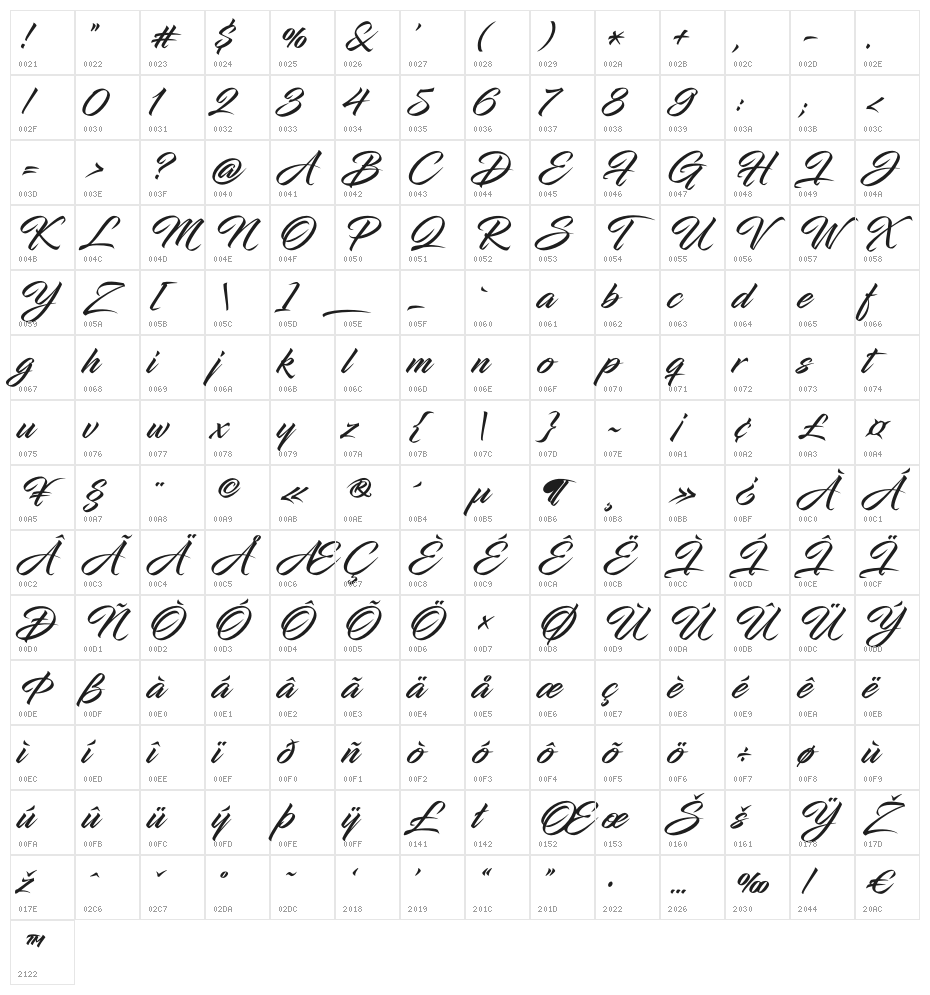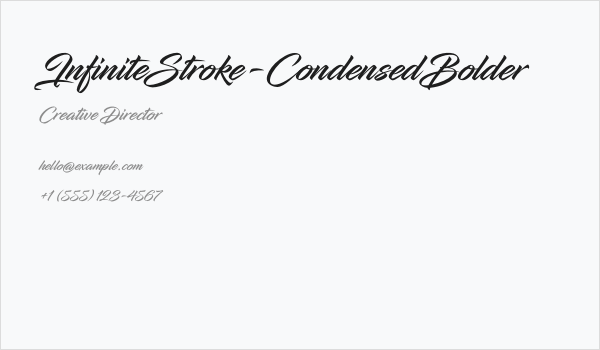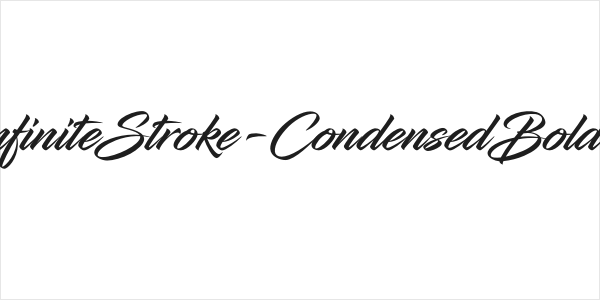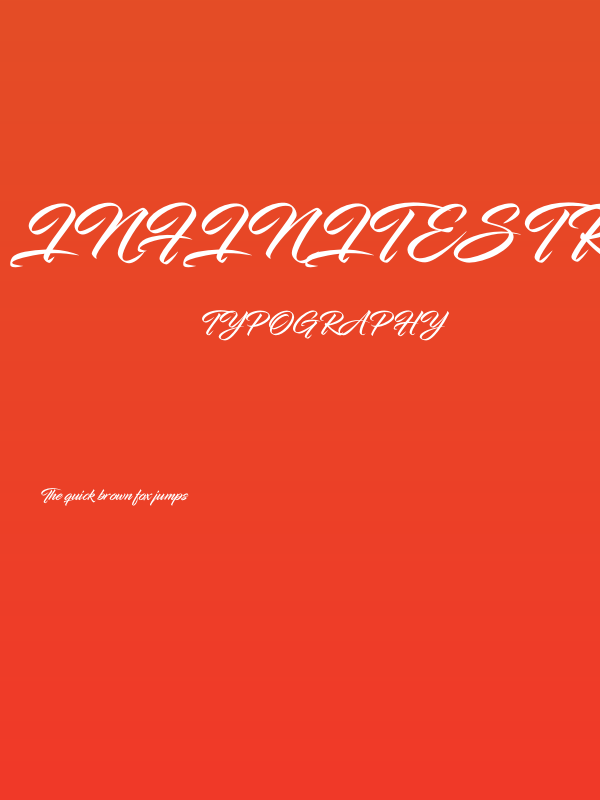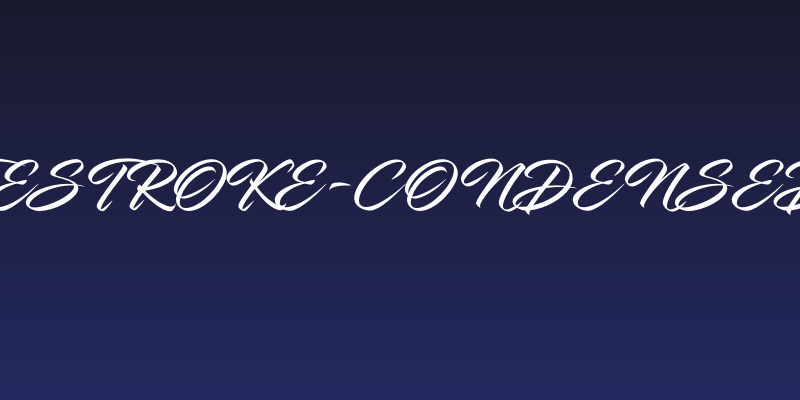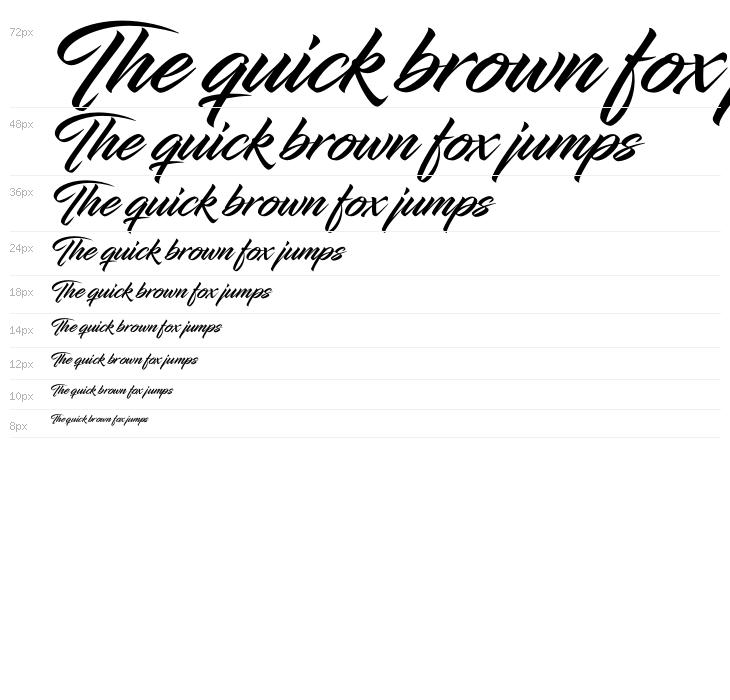
InfiniteStroke-CondensedBolder Font
InfiniteStroke-CondensedBolder Description
This font features a bold and dynamic script style with a condensed width, giving it a striking and elegant appearance. The characters are fluid and connected, creating a sense of motion and sophistication. The uppercase letters are particularly ornate, with sweeping curves and flourishes that add a touch of drama. The lowercase letters maintain a consistent flow, enhancing readability while preserving the decorative nature. The numerals and special characters are designed to match the overall aesthetic, ensuring a cohesive look across all text elements. This font's high contrast in stroke thickness adds to its visual impact, making it suitable for eye-catching designs.
| Proposed Projects | Ideal for wedding invitations, luxury branding, elegant packaging, and artistic posters. |